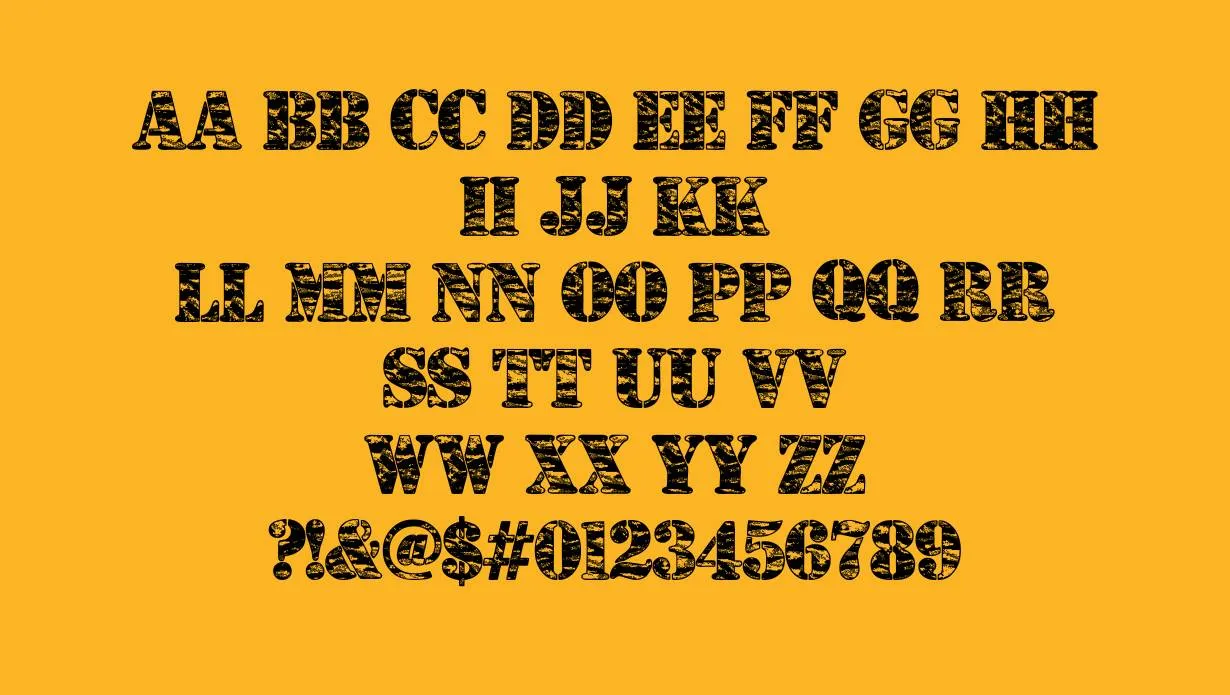
The Camouflage Jungle font boasts a rugged and military-inspired appearance, often utilized in designs associated with outdoor or adventure themes, posters, or any project aiming for a camouflage or jungle-style aesthetic.
This font’s rough and textured design adds a sense of adventure and ruggedness to the text, creating a visual narrative of exploration and the wild outdoors.